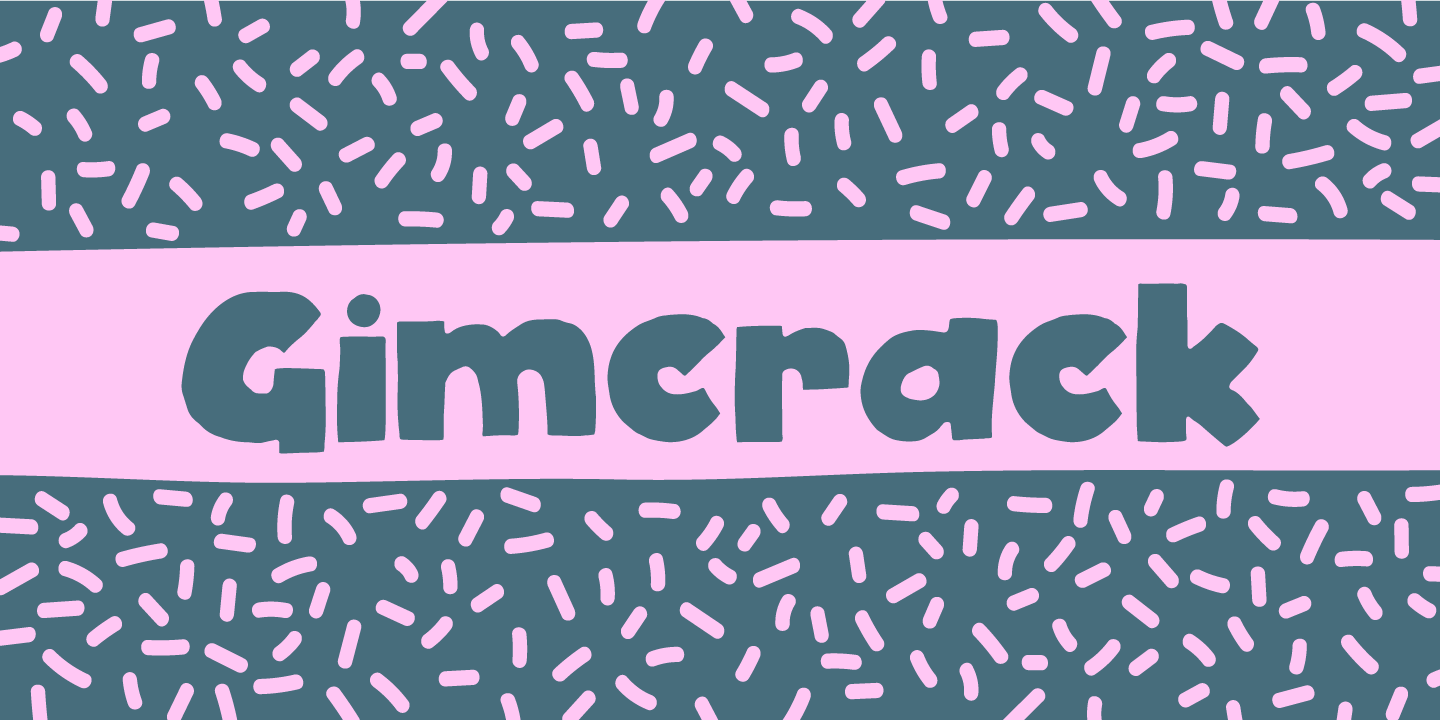
The Gimcrack Font is a wonderfully quirky and often eccentric display typeface, characterized by its playful, irregular forms and a distinctly whimsical, almost haphazard charm. Imagine its lively characters gracing the titles of independent zines, adding a unique and unconventional touch to creative blog headers, or creating delightful headlines for quirky event posters and informal announcements. Its distorted shapes, often with a bouncy or uneven baseline and unexpected angles, also make it an excellent choice for unique greeting cards, wildly fun party invitations, creative craft projects, and any design where a spirited, imaginative, and unpretentious feel is desired. Whether you're aiming for a zany, surprising look or a distinctly artistic touch with a carefree flair, Gimcrack Font delivers with its undeniable personality, ensuring your visuals are both inviting and truly memorable.
What makes Gimcrack Font so exciting is its ability to infuse designs with immediate joy and a sense of boundless, unhinged imagination, breaking free from traditional elegance and precision. In a visual landscape that often benefits from a touch of outrageous fun, this font offers a refreshing alternative that captures attention with its distinctive and energetic letterforms. It’s more than just a typeface; it’s a tool for storytelling, allowing designers to convey warmth, playfulness, and a sense of adventure effortlessly. This font excels at creating an emotional connection with the audience, making content feel more accessible and enjoyable, particularly for younger demographics or projects with a whimsical theme. Designers will find it an invaluable asset for creative projects that require a unique visual identity that truly stands out from the crowd.
The Gimcrack Font family is typically designed to offer a delightful range of styles, enhancing its versatility across various creative applications. Beyond the foundational Gimcrack Regular typeface, you might discover playful companion styles such as a slightly bolder Gimcrack Bold for stronger emphasis, or subtle Gimcrack Outline or Gimcrack Shadow versions that add a different visual texture and dimension. Given its whimsical and often cartoon-inspired nature, the family may also include unique ligatures, alternate characters, or dingbats that perfectly complement its overall character, allowing for even greater customization. These diverse family members provide designers with the flexibility to craft engaging typographic compositions, ensuring visual consistency and maximum creative expression from prominent titles to smaller decorative elements, all while maintaining the font’s inherent charm.